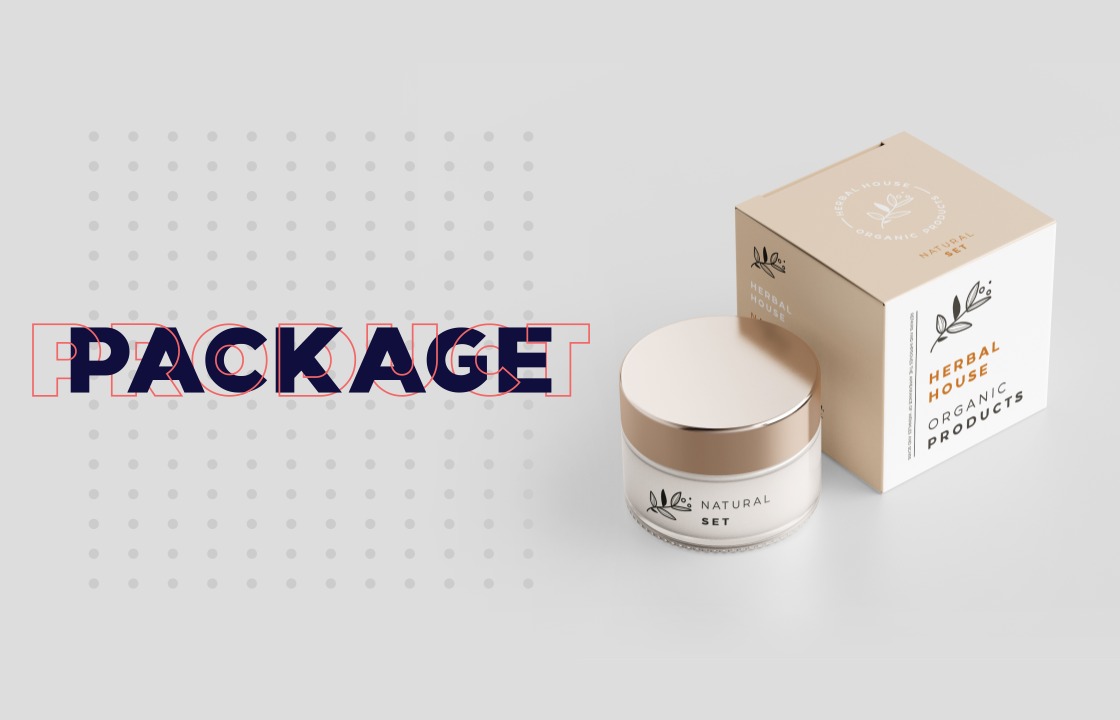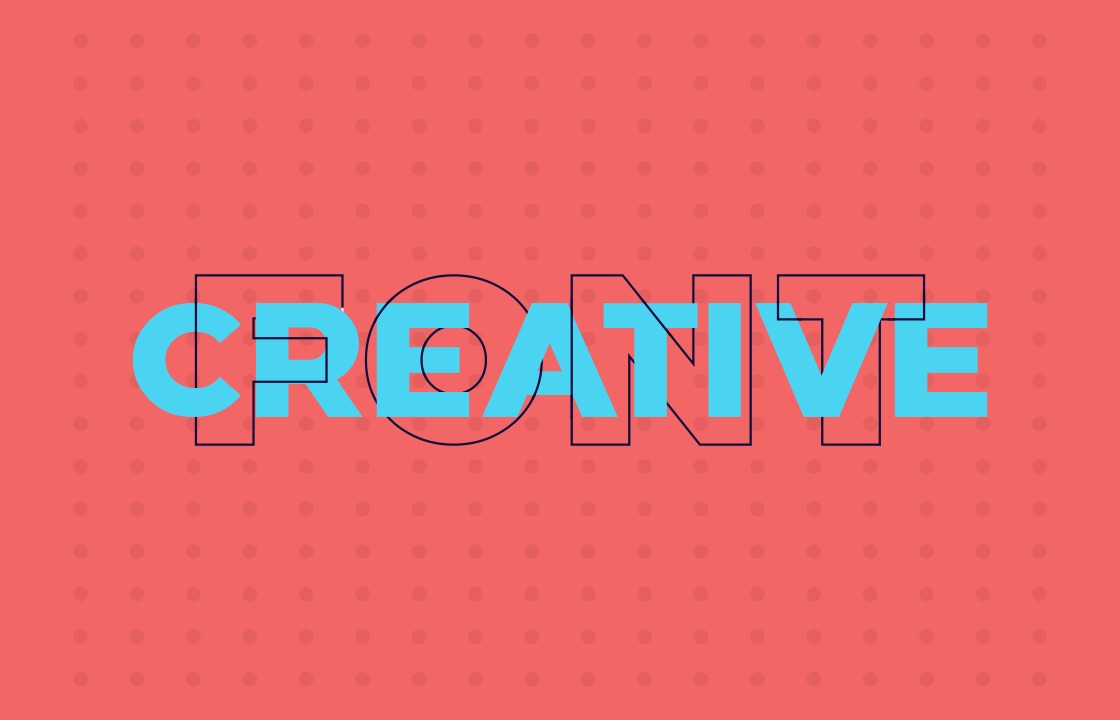
Zilap Global Font
Zilap Global Sans Serif Font
This is a modern geometric sans serif font family manufactured by Zilap Estudio. Its clean and versatile design contains 14 styles (7 in regular and 7 in italic), adaptable design to any creative environment, easy to read and perfect paragraph writing, not to mention that the styles offer a variety of weights to decorate in the best way. rich texts or creative designs.
The heavyweight versions are perfect for large and small-scale eye-catching signage, as their geometric design allows us to detail lettering effortlessly at almost any reading distance, while the thinner weights (such as Thin, light regular) they are elegant styles for glamorous and very fine logos.
Undoubtedly a perfect choice for companies focused on clean presentation, handling of documents with perfectly legible texts and typography styles that allow categorizing operations, places, or tasks of the same.